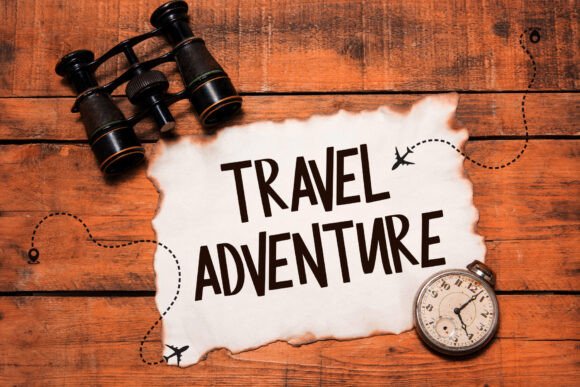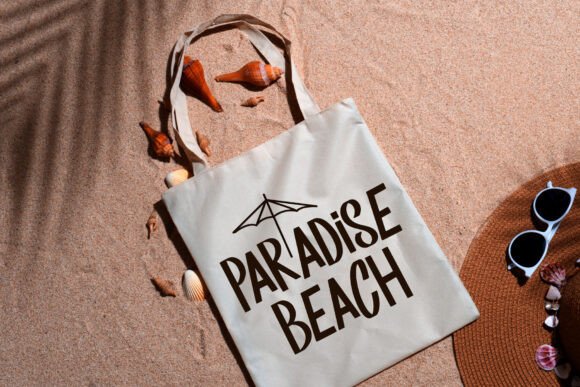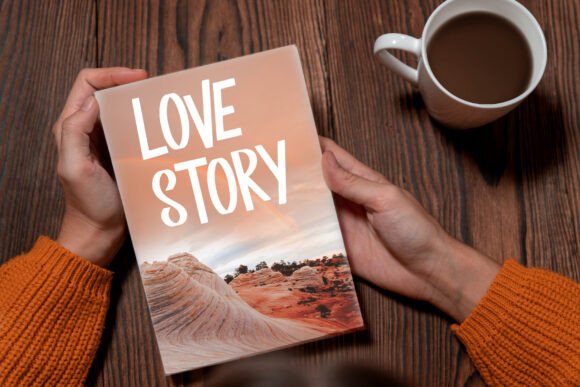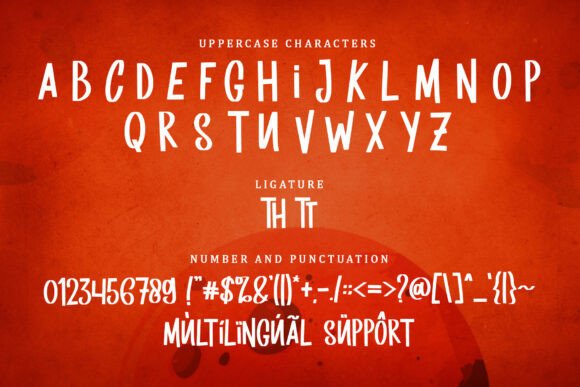
Introduction to Cute Mars Font
Cute Mars is a playful handwritten font that adds a delightful charm to designs.
Ideal for greeting cards, childrenโs projects, and social media graphics, its whimsical style brings creativity and fun to any visual concept .
Key Features of Cute Mars Font
Why Choose Cute Mars Font?
Cute Mars Font offers exceptional quality and versatility, making it a valuable addition to your design toolkit. Whether you’re creating for personal projects or commercial use, Cute Mars Font delivers professional results.